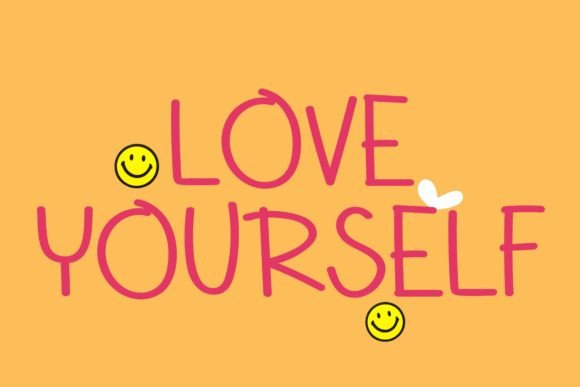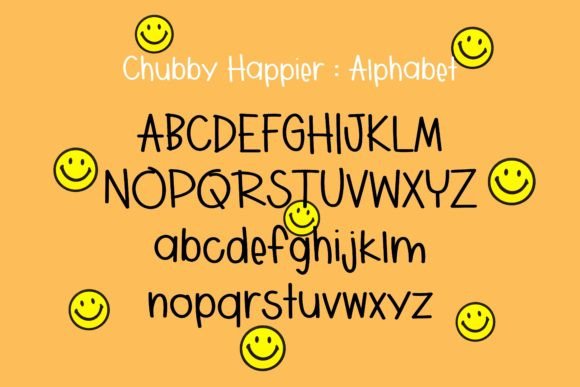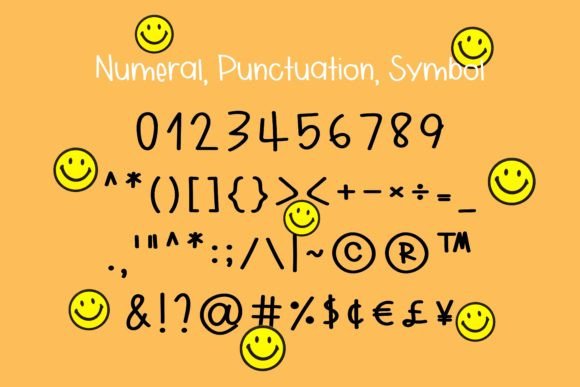
Introduction to Chubby Happier Font
Chubby Happier is a friendly and cute sans serif font.
Whatever the topic, this font will be a wonderful asset to your font library, as it has the potential to enhance any creation .
Key Features of Chubby Happier Font
Why Choose Chubby Happier Font?
Chubby Happier Font offers exceptional quality and versatility, making it a valuable addition to your design toolkit. Whether you’re creating for personal projects or commercial use, Chubby Happier Font delivers professional results.